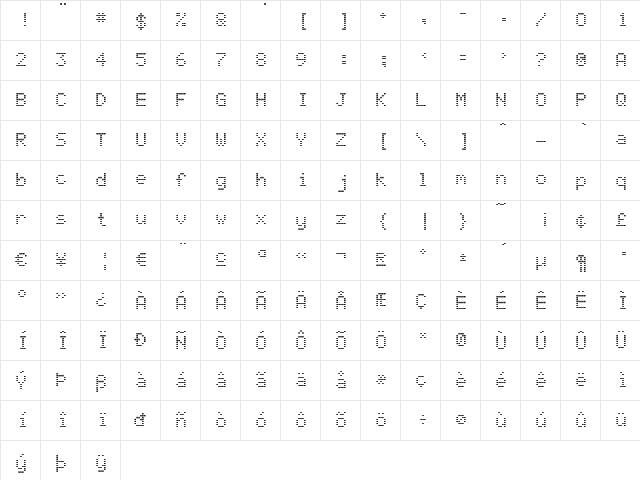
Access Regular Font Preview
Access Regular
Access Regular Font Details
Design Context for Access Typeface
Access is a composed and adaptable typeface that performs quietly and consistently across a wide range of design contexts.